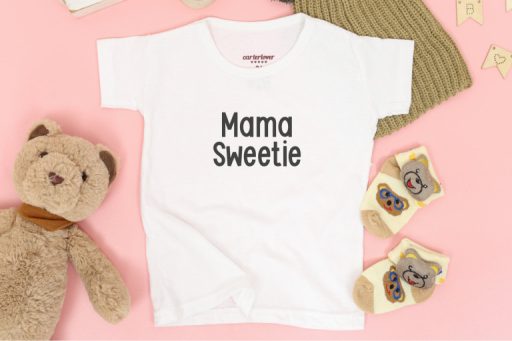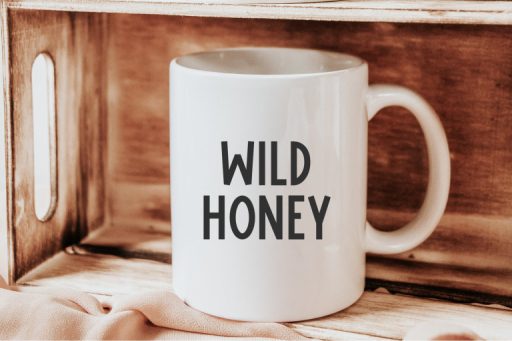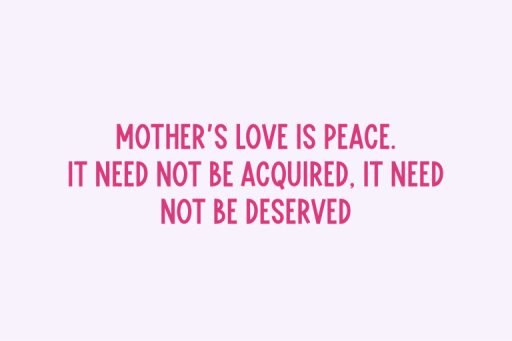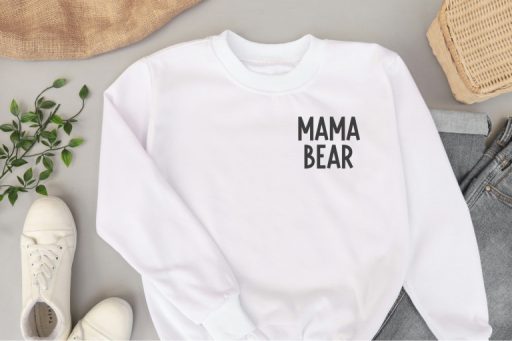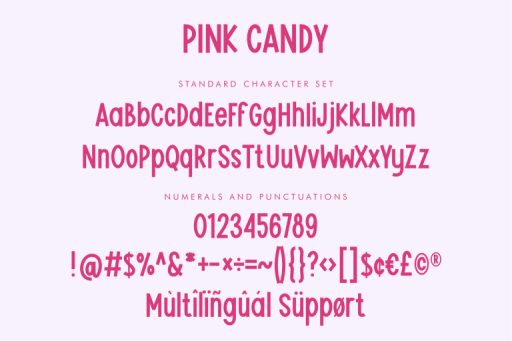
Pink Candy - Playful Kids Font
Pink Candy
Pink Candy – Block Playful Font
Meet Pink Candy! a playful, bouncy, and cute font perfect for standout quotes, playful branding, children’s books, quirky greeting cards, and more! Its charming and warm character adds a unique touch to your designs, whether for short phrases or longer paragraphs like in storybooks. Bring your projects to life with Pink Candy!